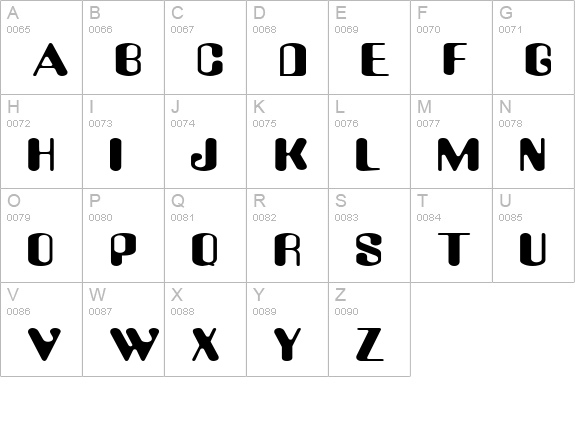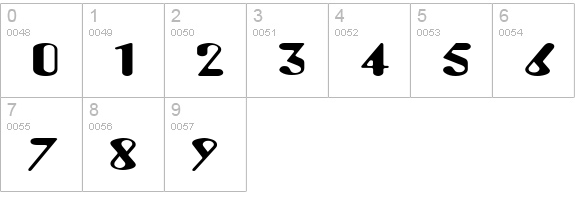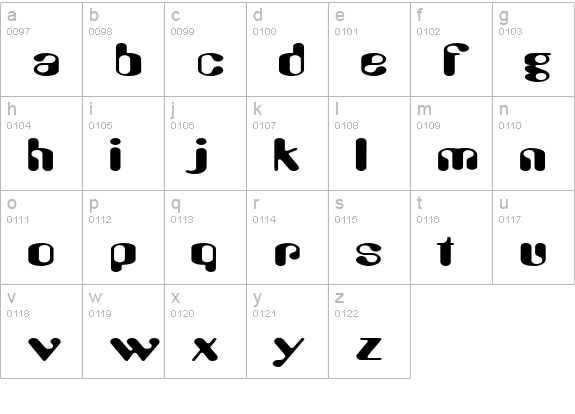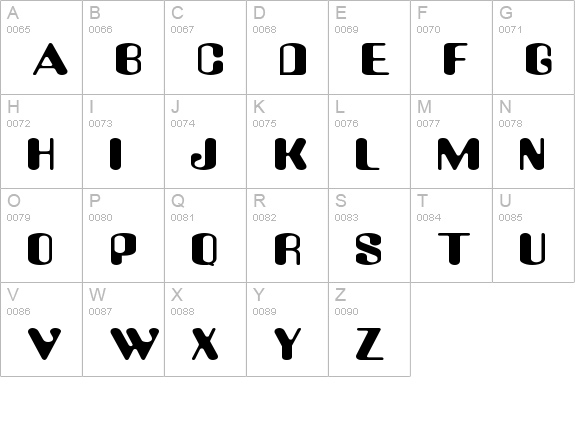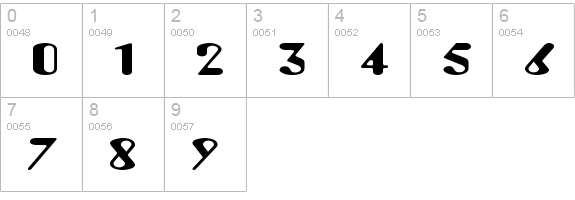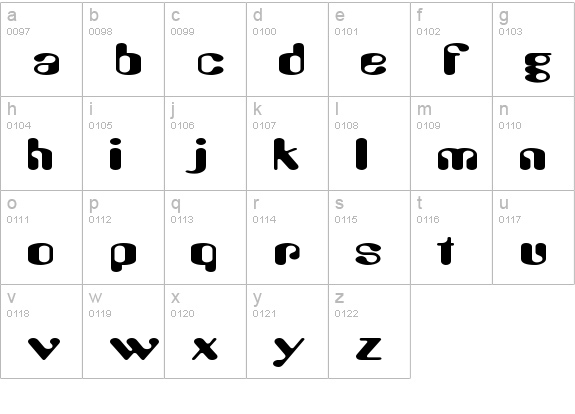
AmosExtended Normal Font Details
AmosExtended Normal is the standard, neutral variant in the AmosExtended typeface family \xE2\x80\x94 well suited to general body text, paragraphs, and standard typographic work.
AmosExtended Normal font is a versatile and modern typeface that strikes the perfect balance between elegance and readability. With its clean lines and contemporary design, this font is ideal for a wide range of design projects, from branding and advertising to web design and editorial content. This font is freely available to download at FontsMarket.com, making it easily accessible to designers and creatives looking to elevate their projects with a touch of sophistication. Whether you're working on a sleek corporate identity, a stylish website, or a chic editorial layout, AmosExtended Normal font is sure to add a touch of class and professionalism to your work. Download it today and see the difference it can make in your designs.